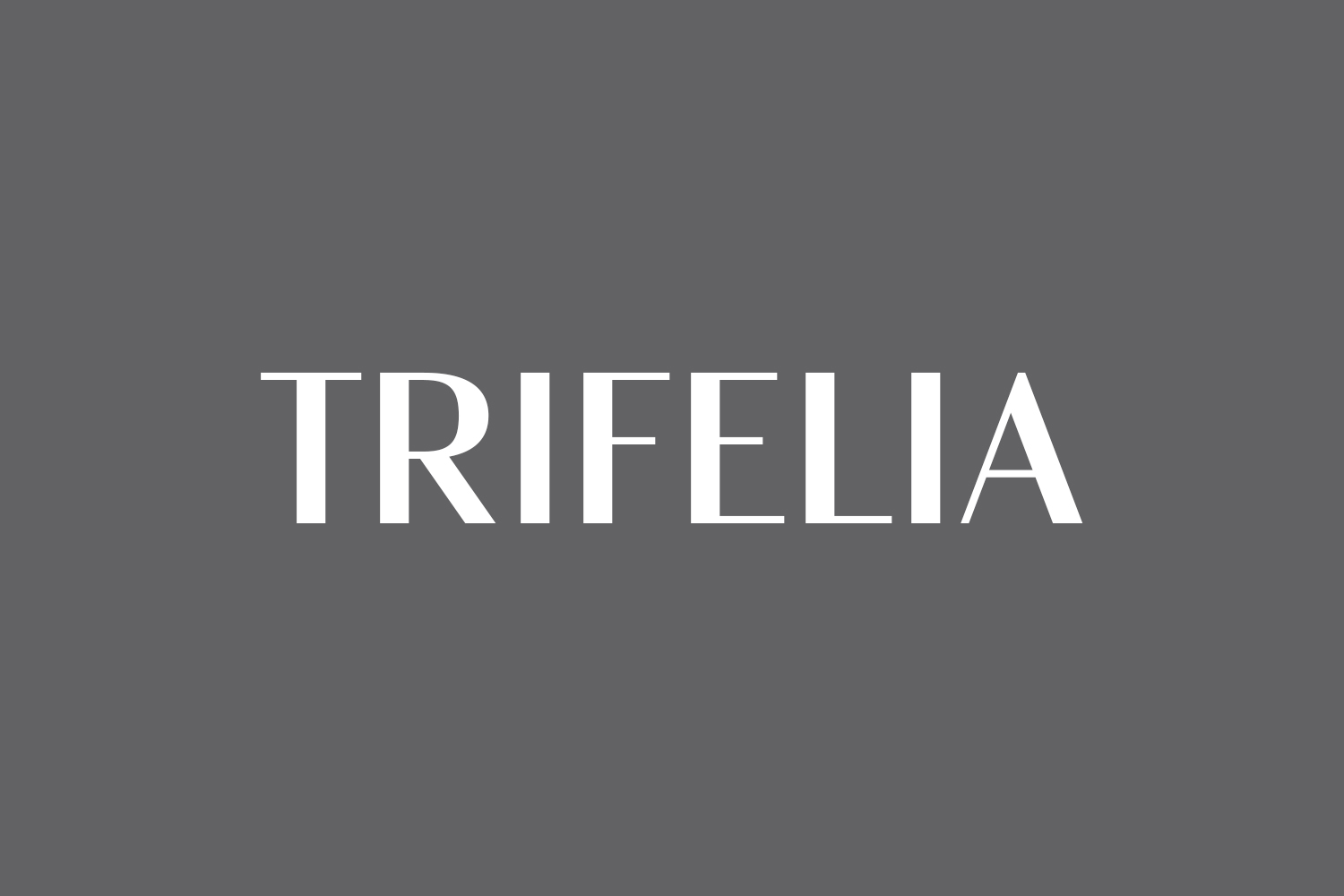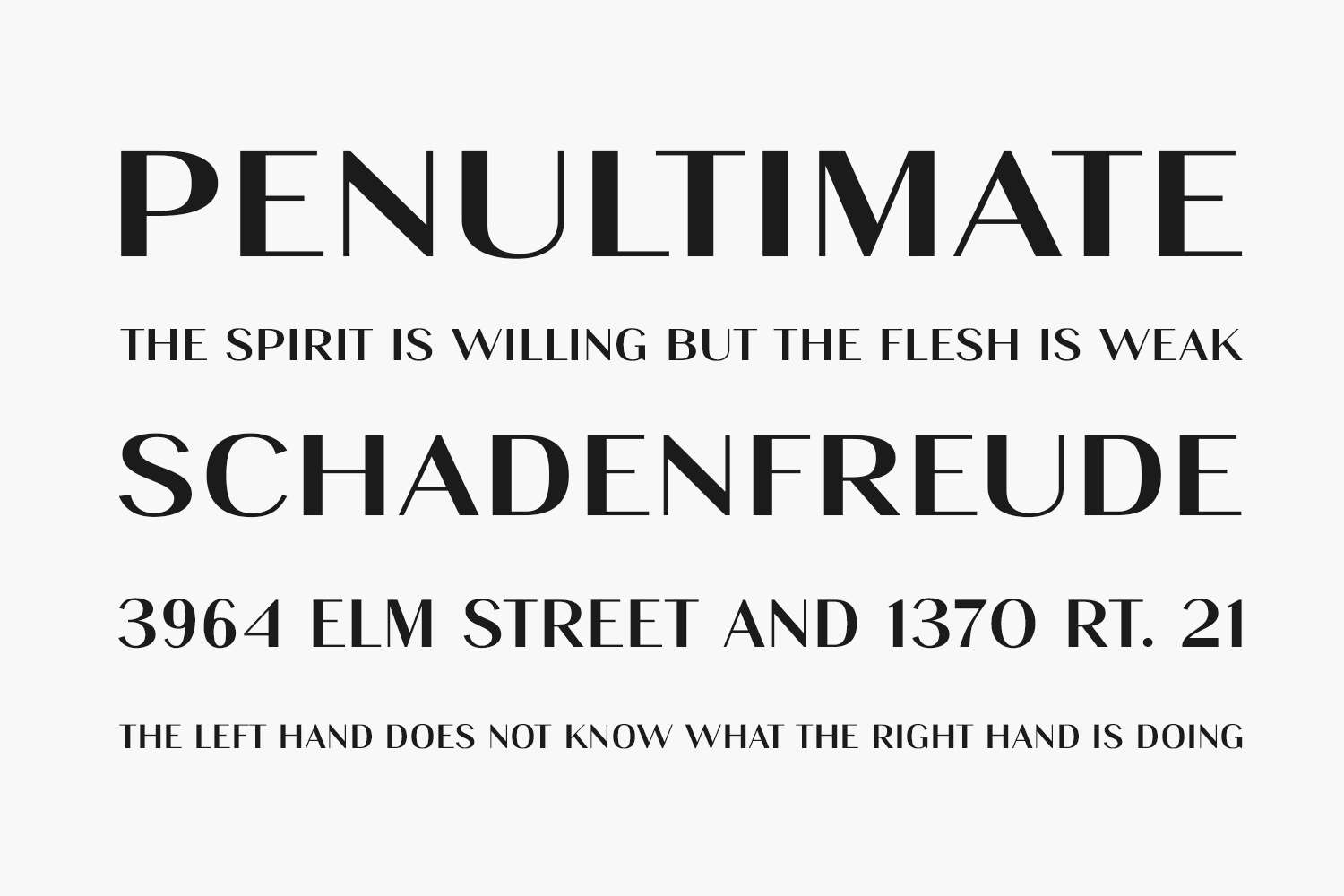
Trifelia Free Font embodies contemporary sophistication in its sleek sans serif design. Ideal for crafting attention-grabbing logos, branding, and quotes, each letter exudes individual charm, breathing life into your designs with its unique and captivating touch. Download the font for free if you need it for personal use or purchase the full version for commercial use.
Designed by BrandSemut